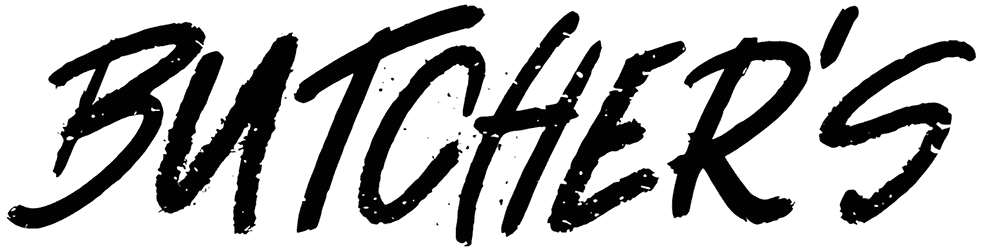
Butcher’s Font
Butchers Font
Above all, if you want to create graphic content that customers are proud of, an all-caps script font such as Butcher’s would help you achieve your goals.
This brush font has the real potential to turn all of your creative ideas including posters, brochures, illustrations, book covers, and logos into a lovely piece of art. Due to its crooked style, it leads to a sense of personalization, fierceness, approachability, and smudgy.
Font bursting with energy, quick strokes and sharp edges. Ideal for loud messages. Very interesting to use for logos, name tags, handwritten quotes, product packaging, merchandise, social media & greeting cards .Also, ideal to make t-shirts design and other clothing products.